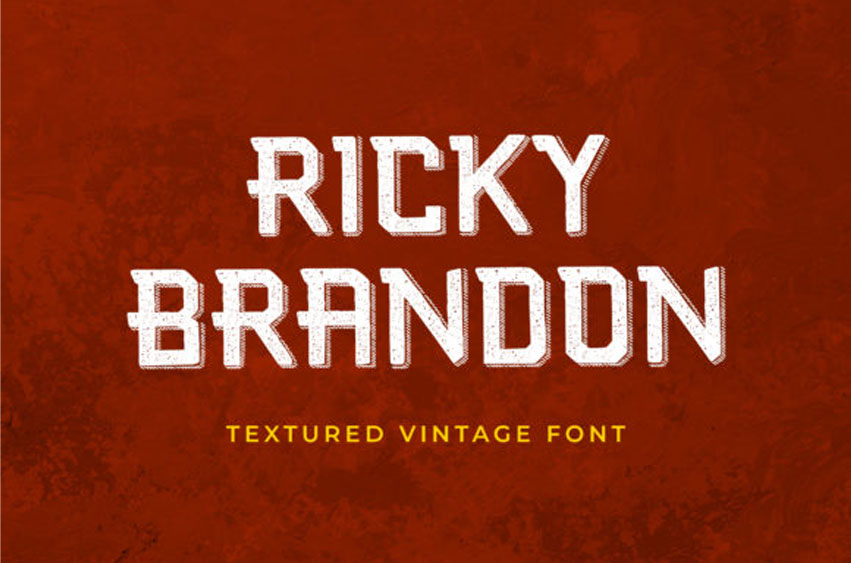
Ricky Brandon Font
Ricky Brandon Font is a cool looking vintage display font.
Bold and thick lettered, this font will instantly make each of your designs stand out.